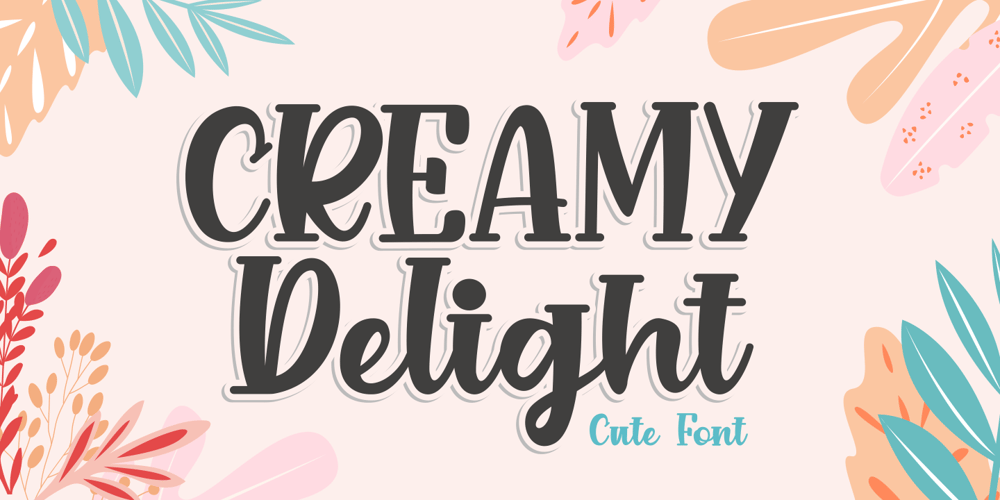
Creamy Delight
Creamy Delight font
Creamy Delight Font Family was designed by Riyadh Abuhafs and published by Awan Senja. Creamy Delight contains 1 styles and family package options. Creamy Delight is a cute and quirky display font. It will add an incredibly joyful touch to your designs. Add this beautiful display font to each of your creative ideas and notice how it makes them stand out!